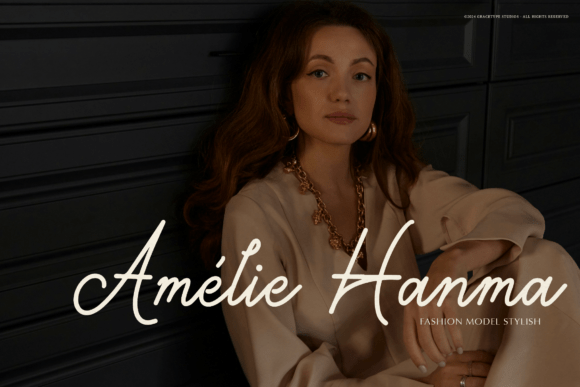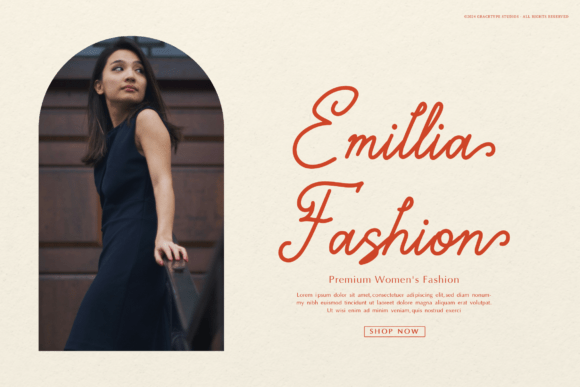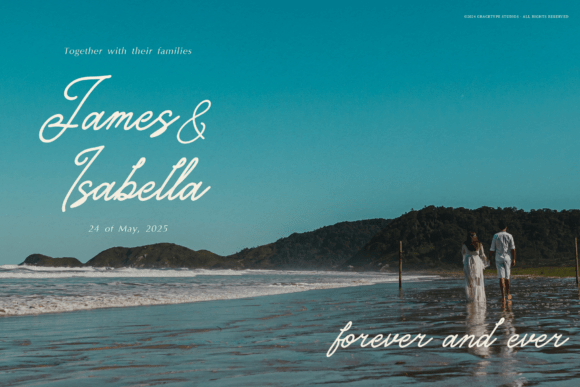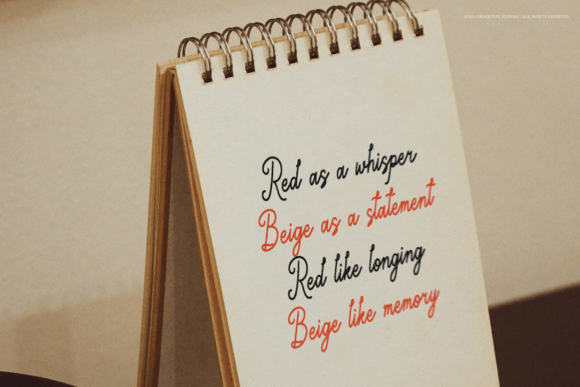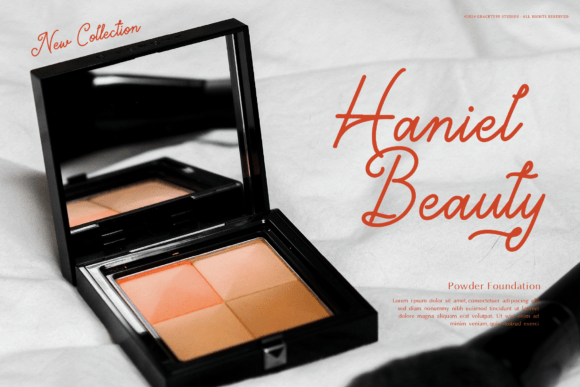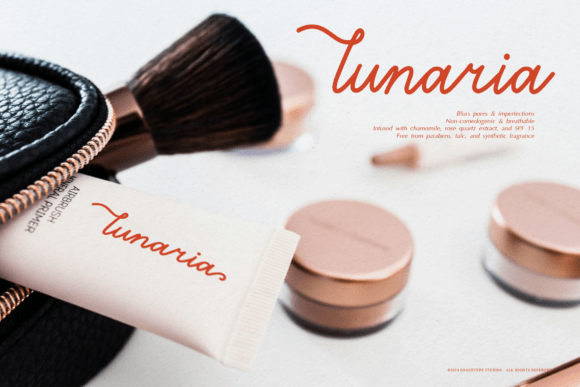
Introduction to Marylona Font
Marylona is a graceful monoline script typeface that effortlessly blends elegance and simplicity.
With its fluid strokes and classic calligraphic charm, itโs ideal for branding, packaging, wedding invitations, logos, and feminine design projects Whether youโre aiming for timeless sophistication or a soft, modern flair, Marylona will elevate your work beautifully.
Key Features of Marylona Font
Why Choose Marylona Font?
Marylona Font offers exceptional quality and versatility, making it a valuable addition to your design toolkit. Whether you’re creating for personal projects or commercial use, Marylona Font delivers professional results.